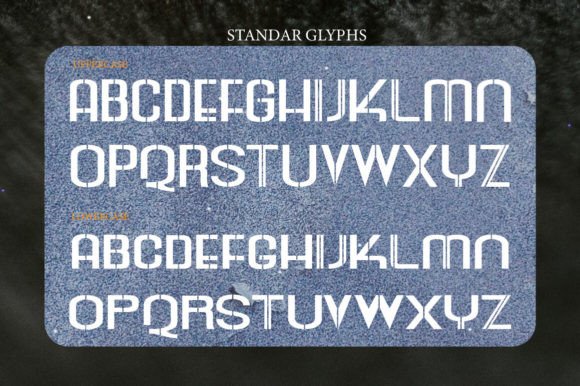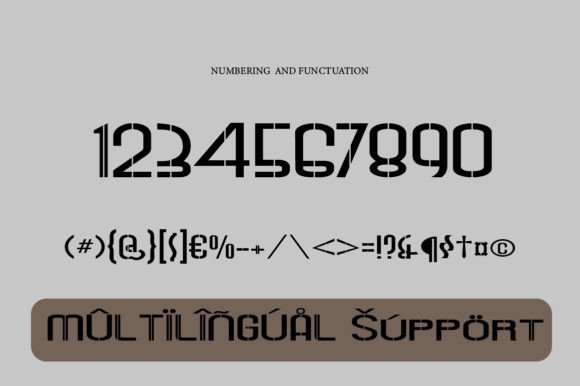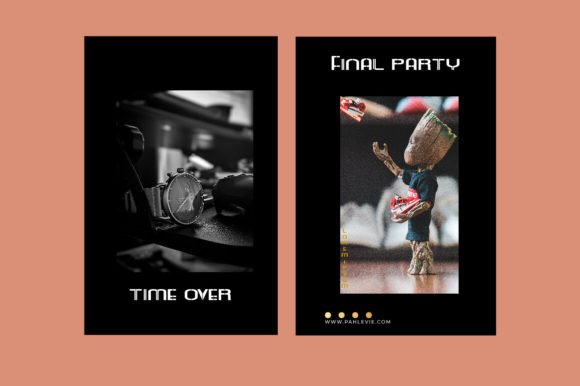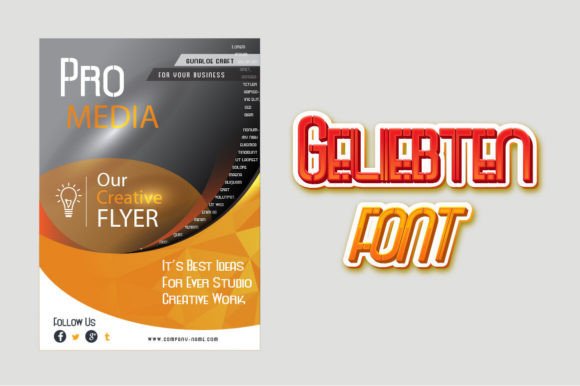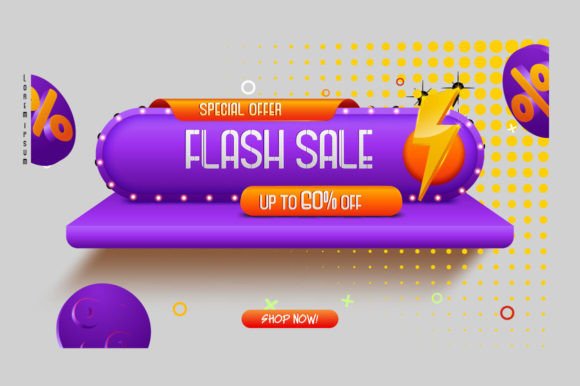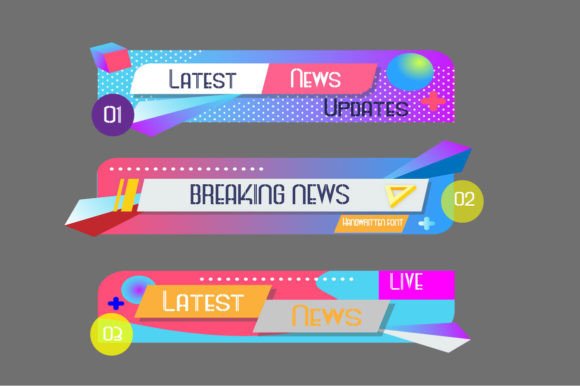
Introducing Geliebten Font: The Modern Display Font You Need
Have you ever been in the middle of a design project, and suddenly, you’re stuck on finding the perfect font? I recall a recent experience where I was working on a branding project for a luxury client, and I just couldn’t find a font that screamed elegance and sophistication. That’s when I stumbled upon Geliebten font, and trust me, it was love at first sight! 💕
The Perfect Style for Modern Designs
Geliebten font is a modern display font that exudes dependability and perfection. Its controlled letterforms and modern touches make it an ideal choice for a wide range of projects, from logos and magazines to movies and digital ads. This font is specifically designed to cater to the needs of corporate branding, making it a versatile addition to your font library.
What I Love About Geliebten Font
- ✨ Clean and Modern Design: Geliebten font boasts a sleek and contemporary design that instantly elevates your designs.
- ✅ Extensive Character Set: The font includes a full set of gorgeous uppercase and lowercase letters, numbers, and punctuation, giving you plenty of creative freedom.
- 💡 OpenType Features: Geliebten font comes with advanced OpenType features, allowing you to experiment with different stylistic alternates and glyphs.
While Geliebten font is an excellent choice, there are a few minor quirks to be aware of:
- 🤔 Limited Use in Body Text: Due to its modern and sleek design, Geliebten font might not be the best choice for body text. It’s ideal for headlines, titles, and short paragraphs.
Geliebten font was created with the goal of providing a modern and versatile font for designers. Inspired by the beauty of geometric shapes and clean lines, the designer aimed to craft a font that’s both elegant and dependable. While the exact details about the designer are scarce, it’s clear that Geliebten font has been crafted with love and attention to detail.
| What is Geliebten font best used for? | Geliebten font is ideal for logos, magazines, movies, digital ads, and any project requiring a modern and elegant display font. |
| Is Geliebten font suitable for body text? | While Geliebten font can be used for short paragraphs, it’s primarily designed for headlines and titles. For body text, consider a more traditional font. |
| Does Geliebten font come with OpenType features? | Yes, Geliebten font includes advanced OpenType features, allowing you to experiment with different stylistic alternates and glyphs. |